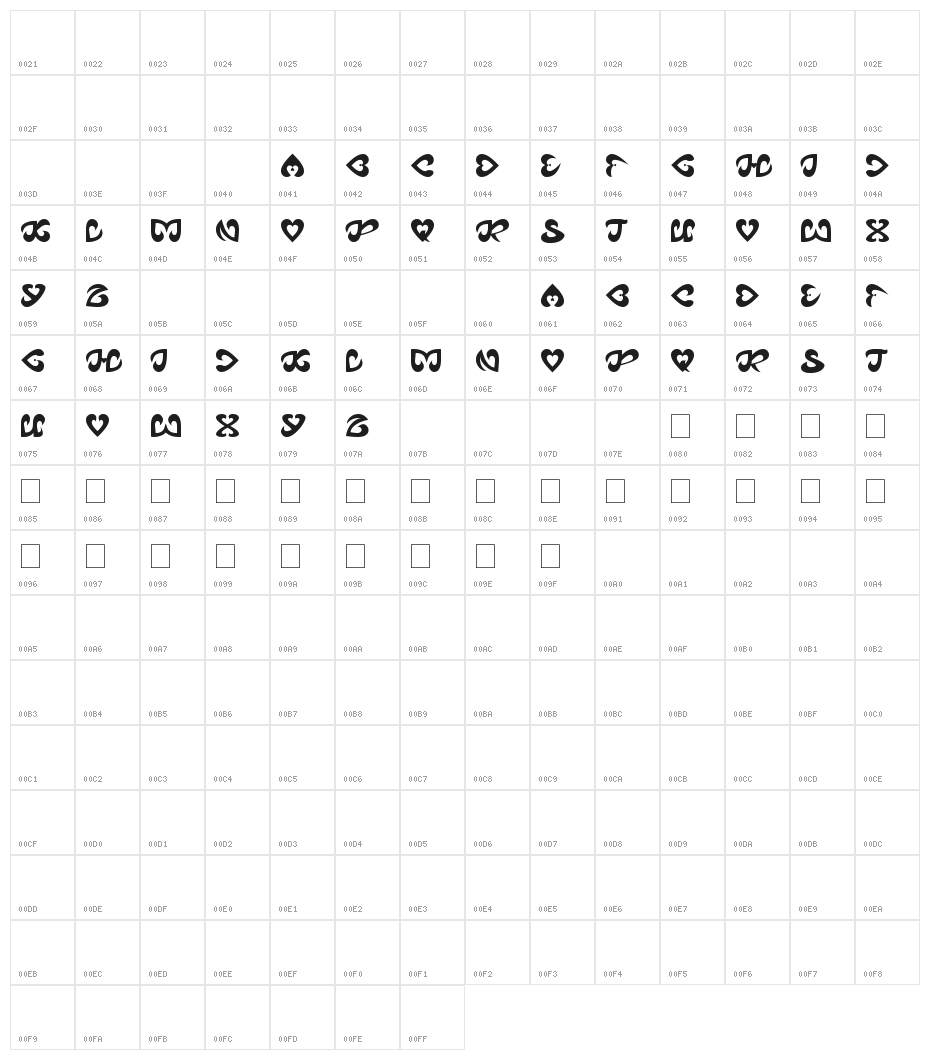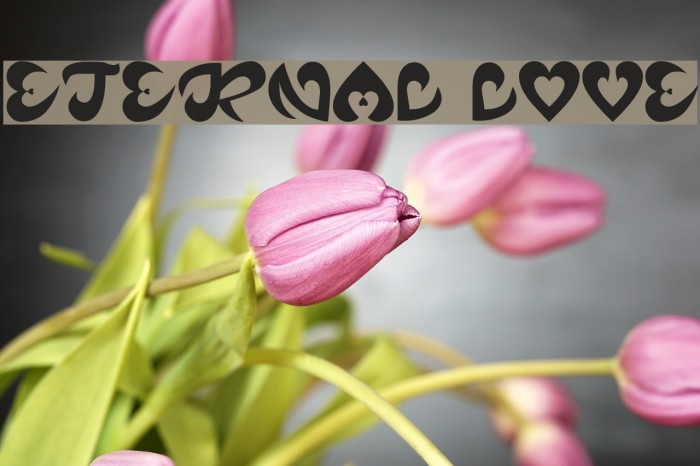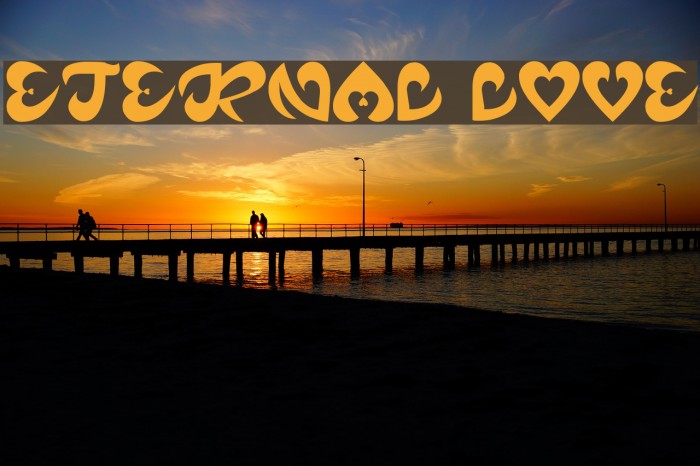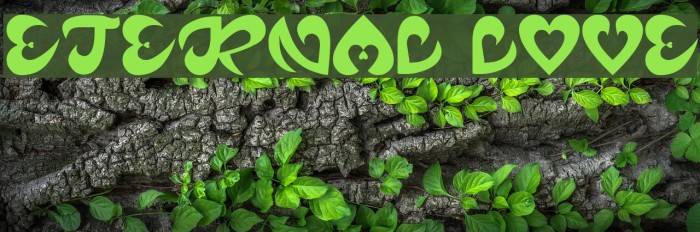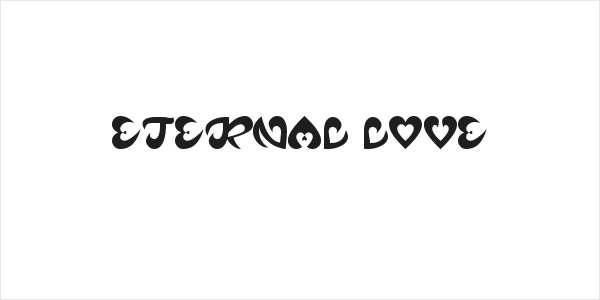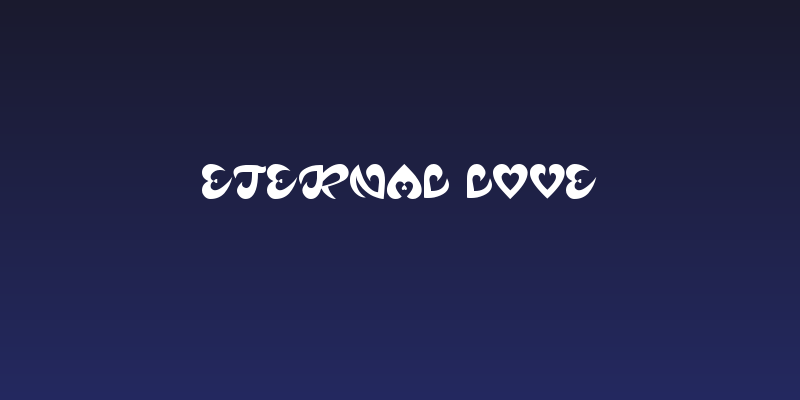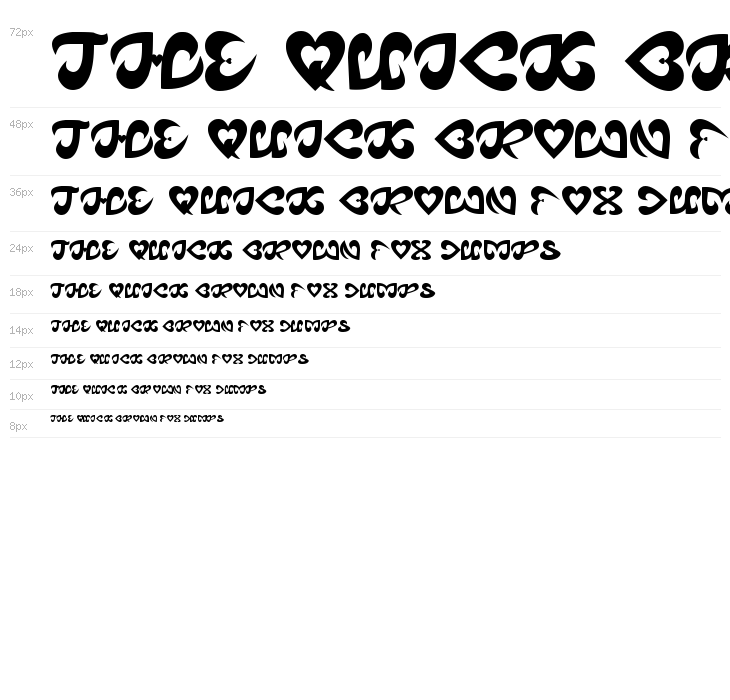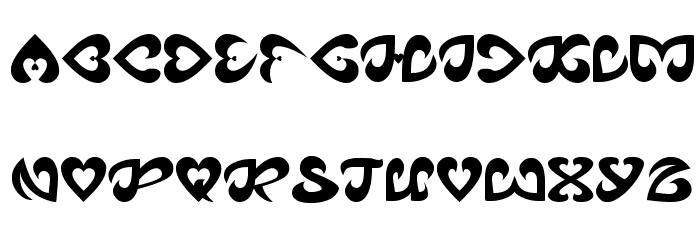
ETERNAL LOVE Font
ETERNAL LOVE Description
This font features a highly decorative and unique style, characterized by heart-shaped elements integrated into each letter. The bold strokes and intricate design give it a playful and romantic feel, making it stand out as a display typeface. The letters are crafted with a sense of symmetry and balance, often incorporating curves and loops that enhance its ornamental nature. The uppercase and lowercase letters maintain a consistent theme, with each character exhibiting a distinct flair. The font's artistic expression is ideal for projects that require a touch of elegance and creativity.
| Overall Style | Romantic, Decorative |
| Proposed Projects | Ideal for wedding invitations, romantic greeting cards, Valentine's Day promotions, and decorative posters. |